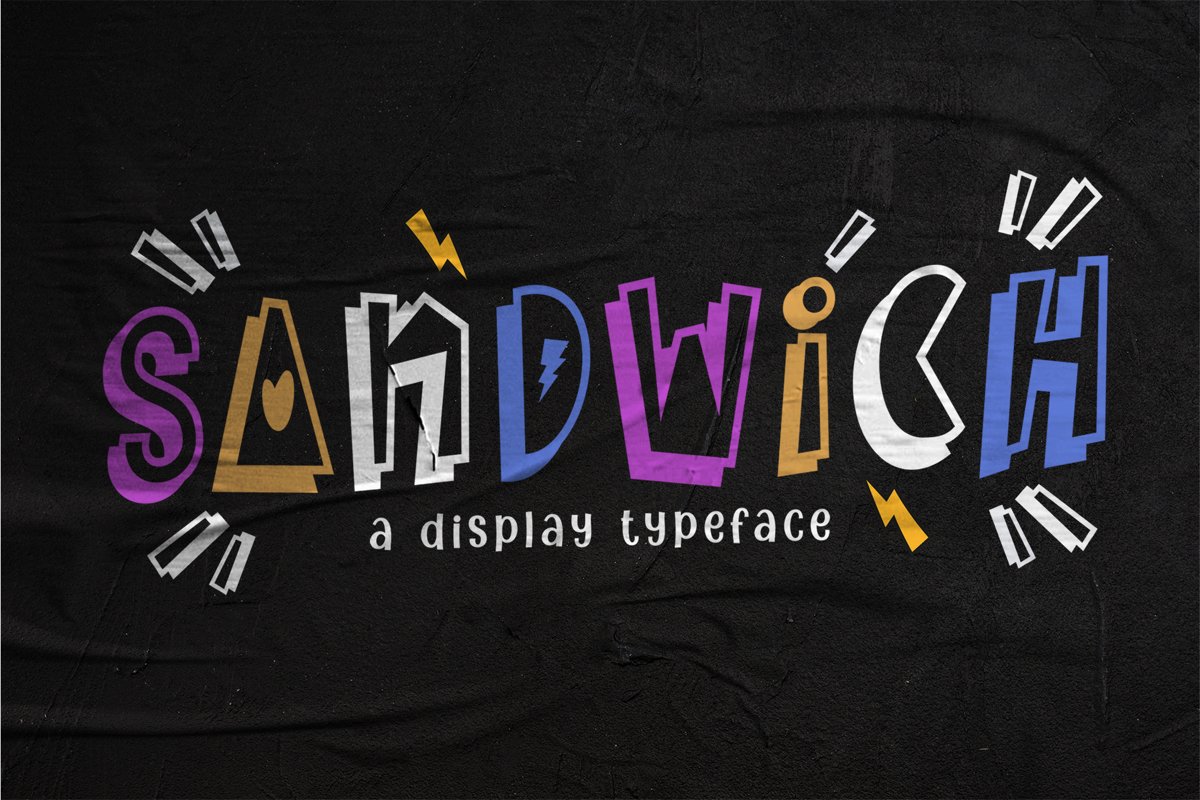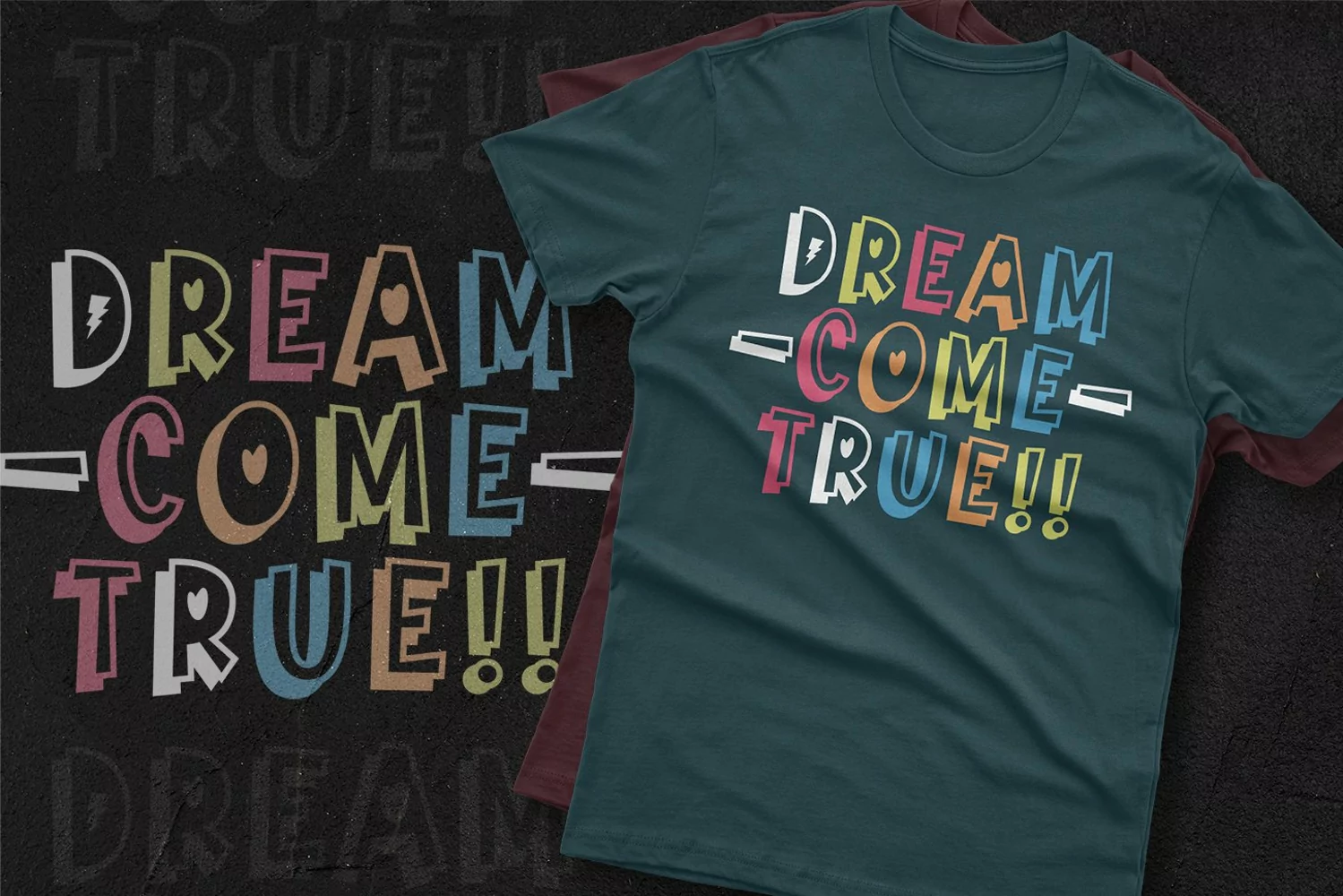
Sandwich is a display typeface. Perfect for display, quotes, t-shirt print, merchandise, packaging, tittle, header, sign, business card, badges, logo and many more.